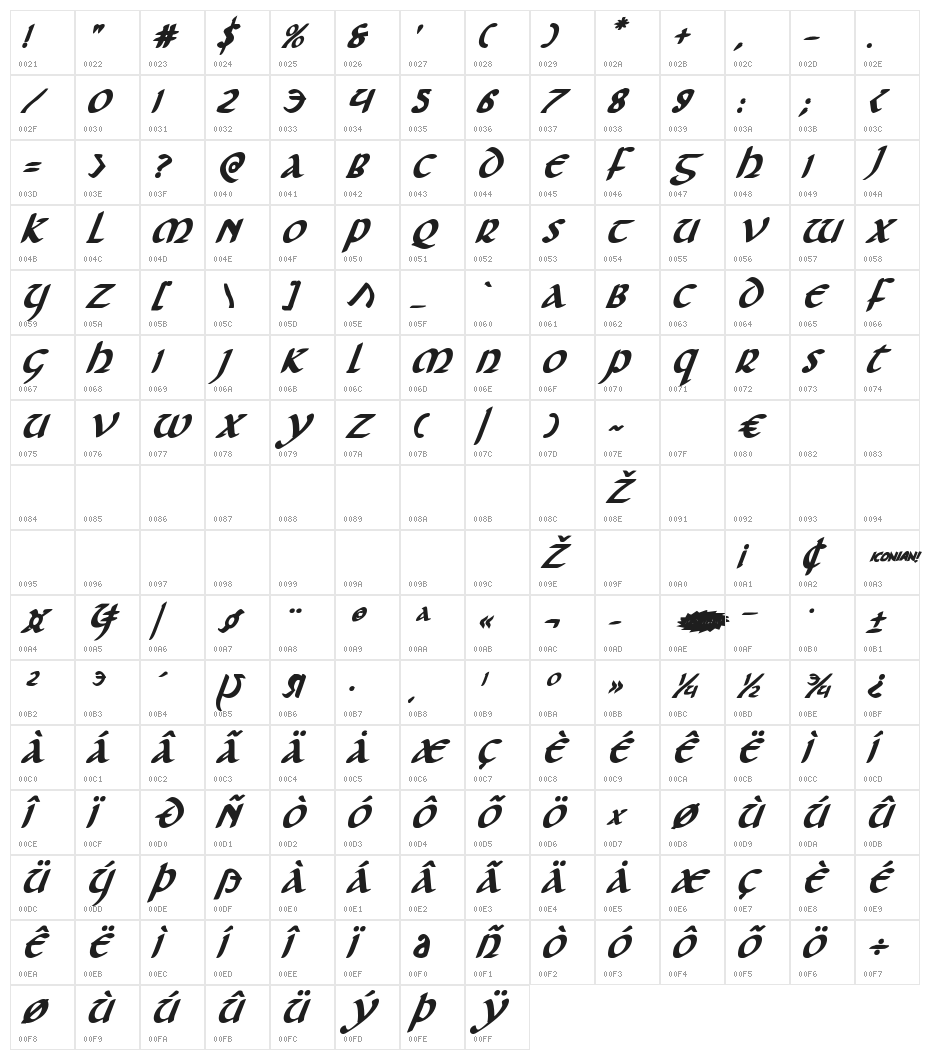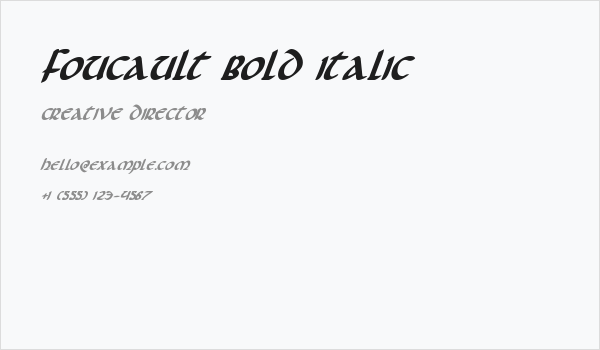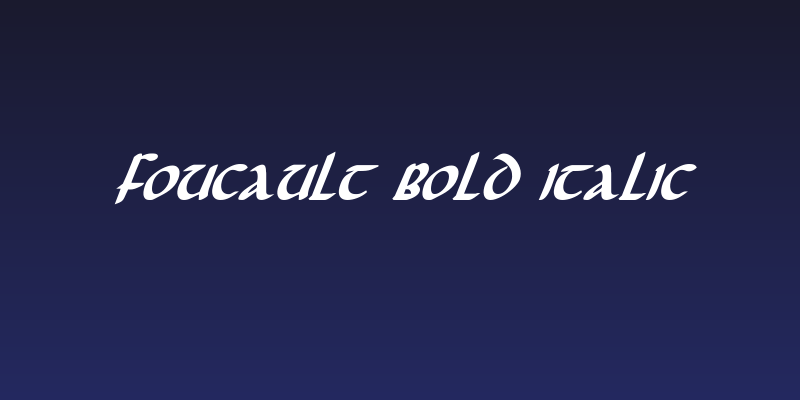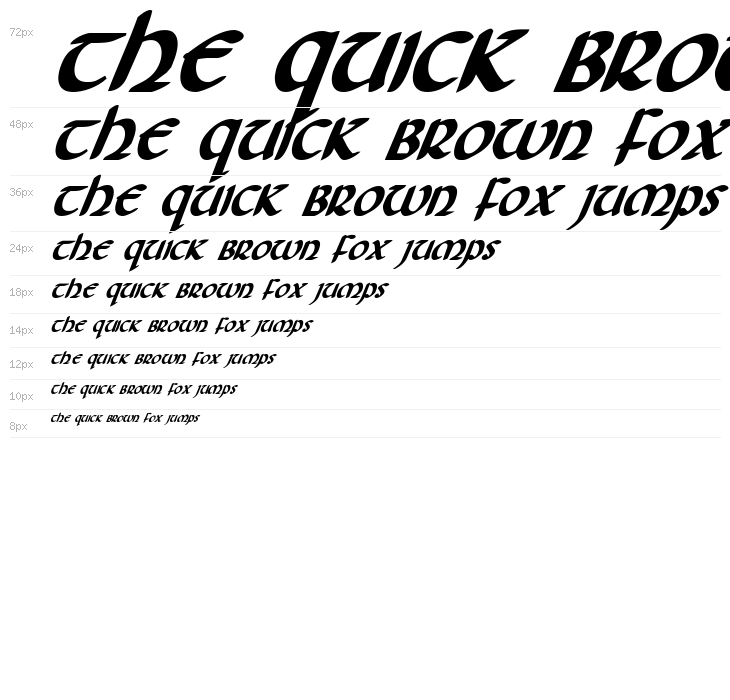
Foucault Bold Italic Font
Foucault Bold Italic Description
This font features a bold and italicized style with a strong, dynamic presence. The characters are sharply angled, giving a sense of movement and energy. The strokes are thick and consistent, providing a robust and impactful appearance. The uppercase and lowercase letters maintain a cohesive style, with the lowercase letters slightly more condensed. The numbers are equally bold, ensuring readability and uniformity. Special characters are designed with the same boldness, integrating seamlessly with the rest of the font.